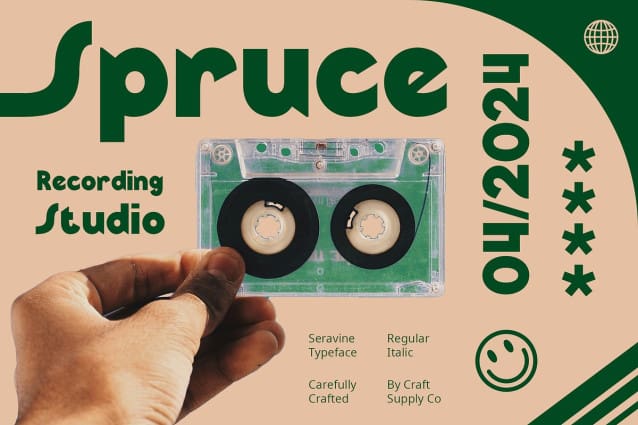
Seravine Font
Seravine Font: A Vibrant Blast from the Past. Bold and Retro-Inspired Design Seravine font channels the bold spirit of the 90s and 80s, exuding retro vibes with a funky twist. Its thick and prominent strokes capture the essence of vintage typography while infusing it with a modern flair.
Vibrant and Playful Aesthetic With its vibrant and playful aesthetic, This font adds a burst of energy to any design project. The font’s dynamic curves and bold lines evoke a sense of nostalgia, reminiscent of the lively and colorful pop culture of the past decades.
Versatile Application for Creative Projects Ideal for various display needs, from posters to branding, This font offers versatility in application. Whether used for headlines, logos, or promotional materials, this font injects personality and character into every project.
Making Bold Statements with Retro Flair This funky font enables designers to make bold statements with a touch of retro flair. Whether aiming for a nostalgic throwback or a contemporary twist on classic design, This font stands out as a versatile and captivating choice for any creative endeavor.